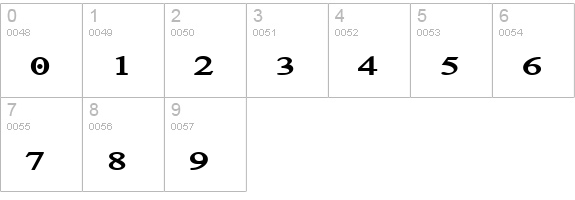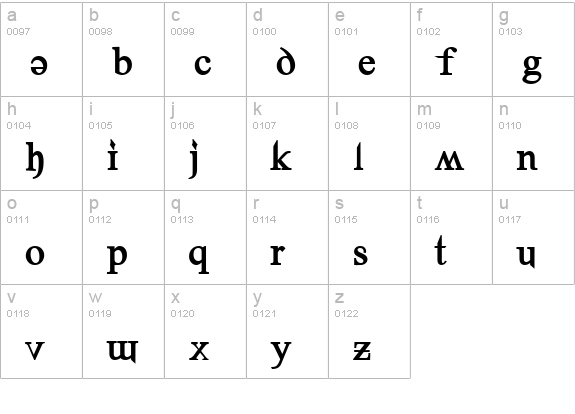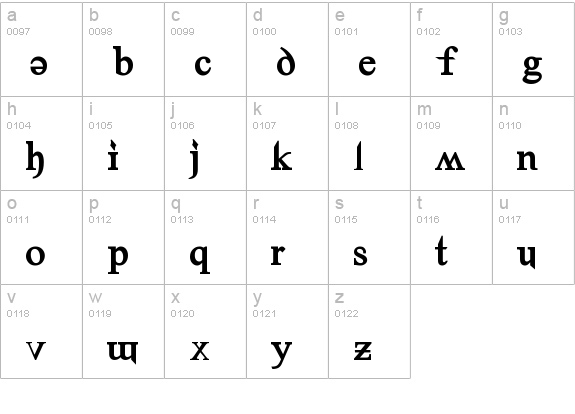
Denial2RegularBold Font Details
Denial2RegularBold is a modern and bold typeface that exudes confidence and strength. With its clean lines and sharp edges, this font is perfect for making a statement in your designs. Whether you're creating a poster, logo, or branding material, Denial2RegularBold will help your message stand out with its bold presence. The best part? Denial2RegularBold is available for free download at FontsMarket.com. This means you can easily access this striking font and incorporate it into your projects without any cost. Don't miss out on the opportunity to elevate your designs with the impactful Denial2RegularBold font - download it today and make a bold statement with your typography!